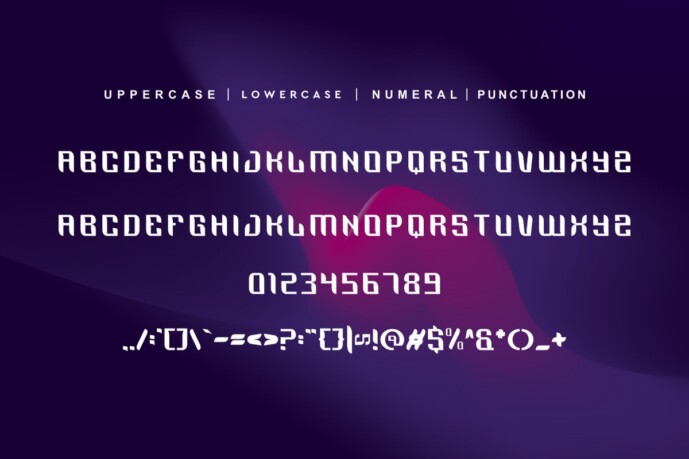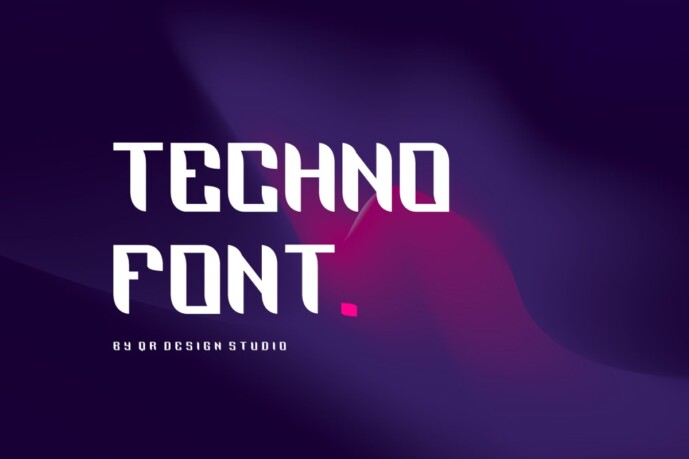
Grotech Font
Designer: qrdesignteam
Grotech Font is a bold and authentic display font. The font is suitable for any branding project like poster, logo, sport, and many more. Outstanding in a wide range of contexts.